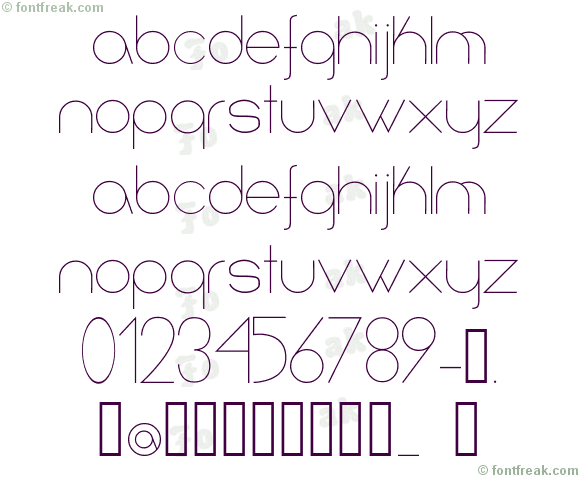
Infinita
About Infinita
Infinita, crafted by Manuel Ramos using FontForge 2.0, is a distinctive sans-serif typeface that captivates with its modern and minimalistic design. This font features clean lines and a balanced stroke weight, creating an inviting yet professional aesthetic. The contrast in its letterforms is subtle, making it versatile for various applications. With generous spacing between characters, Infinita enhances readability, allowing for seamless integration into both digital and print media.
This font shines in several specific use cases. It is particularly suited for wedding invitations, where its elegant simplicity can add a touch of sophistication. Infinita is also an excellent choice for restaurant menus, as its clarity aids in easy navigation for diners. Graphic designers will find it perfect for branding projects, ensuring that logos and promotional materials stand out without overwhelming the viewer. Additionally, Infinita can enhance the visual appeal of website headers, providing a contemporary feel that resonates with modern audiences. Content creators will appreciate the font's versatility, making it ideal for social media graphics and online publications.
What truly sets Infinita apart is its ability to combine functionality with aesthetics. It provides a clean and stylish option for those looking to convey professionalism while maintaining an approachable vibe. With the Infinita font free download, users can effortlessly enhance their designs, ensuring that their projects stand out in today’s competitive landscape.